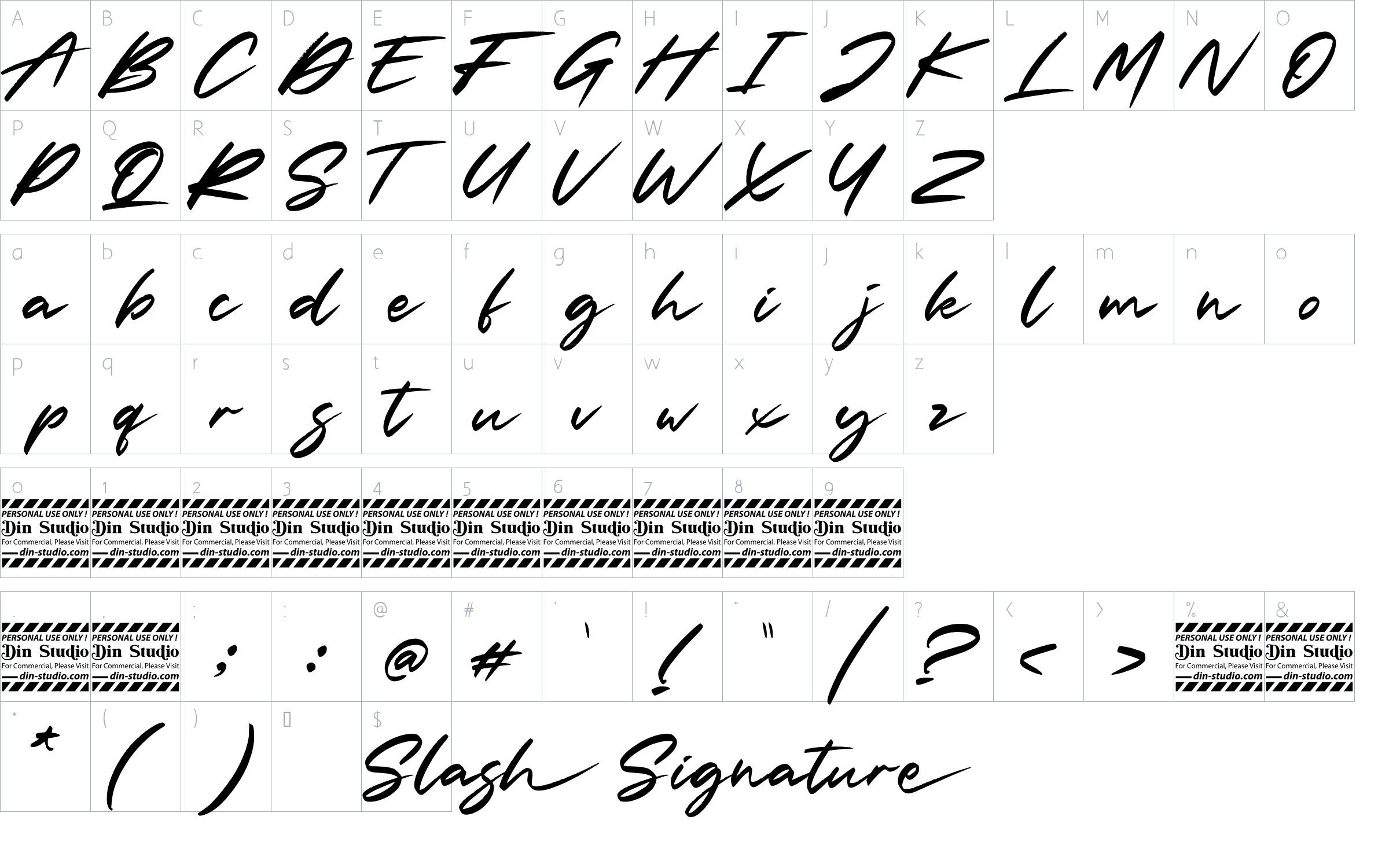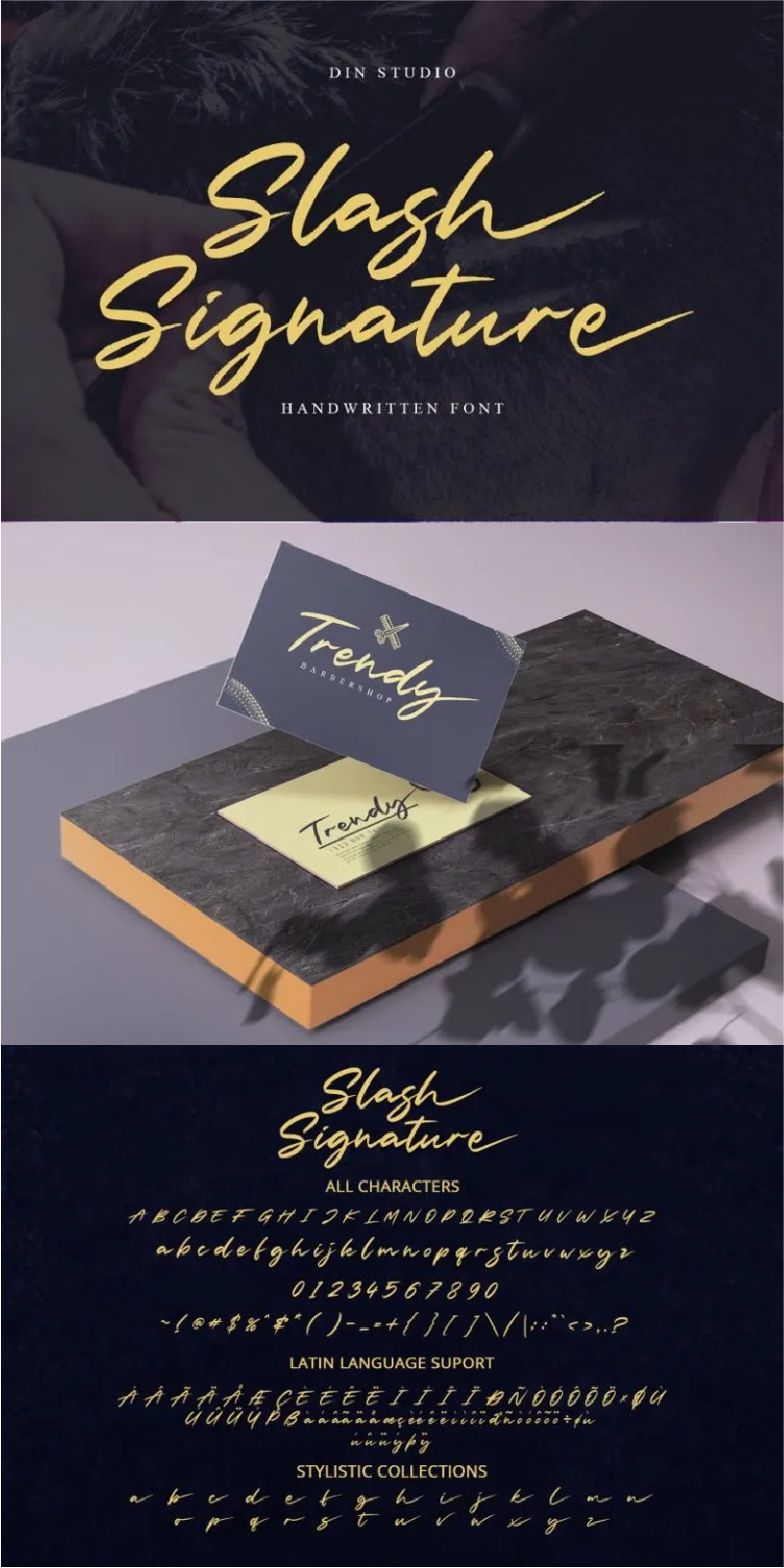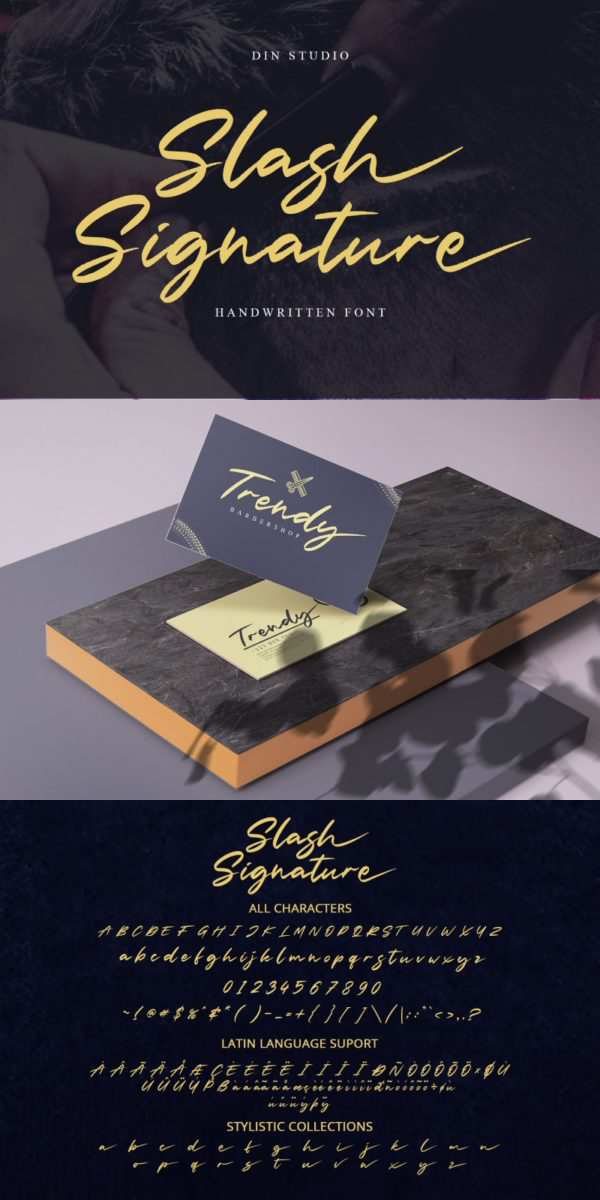
Slash Signature Font
About Slash Signature
Slash Signature is a modern handwritten font. With a classy and natural handwritten style, it brings a classy and beautiful typeface. Slash signature is best used for branding, logotype, invitation, advertisement, and quotes. The font includes full set of hand lettered uppercase and lowercase letters, numerals, and punctuation. See the previews above to get some inspiration on how you can use them. Happy Designing!
-Stylistics Set